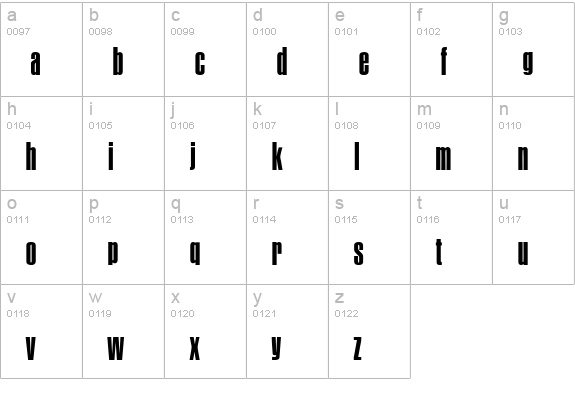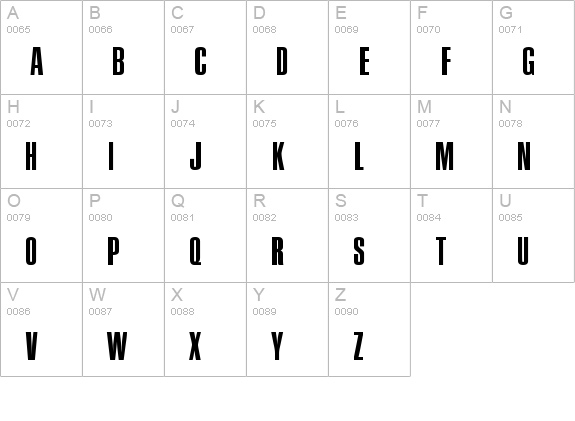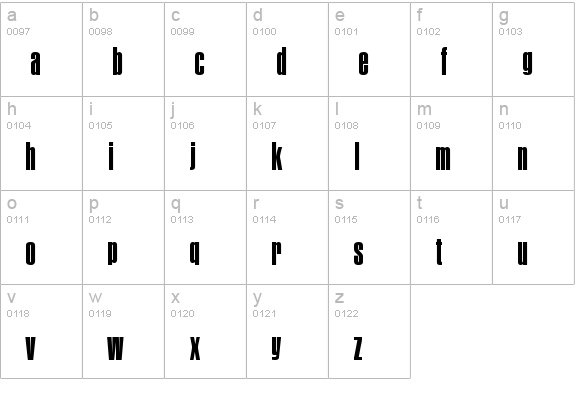
P700-Sans-Regular is the standard, neutral variant in the P700 typeface family \xE2\x80\x94 well suited to general body text, paragraphs, and standard typographic work.
The P700 Sans Regular font is a versatile and modern typeface that exudes simplicity and sophistication. With its clean lines and balanced proportions, this font is perfect for a wide range of design projects, from branding to editorial work. The P700 Sans Regular font is not only visually appealing but also highly legible, making it a great choice for both print and digital applications. What sets this font apart is that it is available for free download at FontsMarket.com, allowing designers and enthusiasts to access its refined aesthetic without any cost. Whether you're working on a professional project or a personal endeavor, the P700 Sans Regular font is a reliable choice that will elevate your designs with its effortless charm and timeless appeal. Download it today and explore the endless possibilities that this font has to offer.